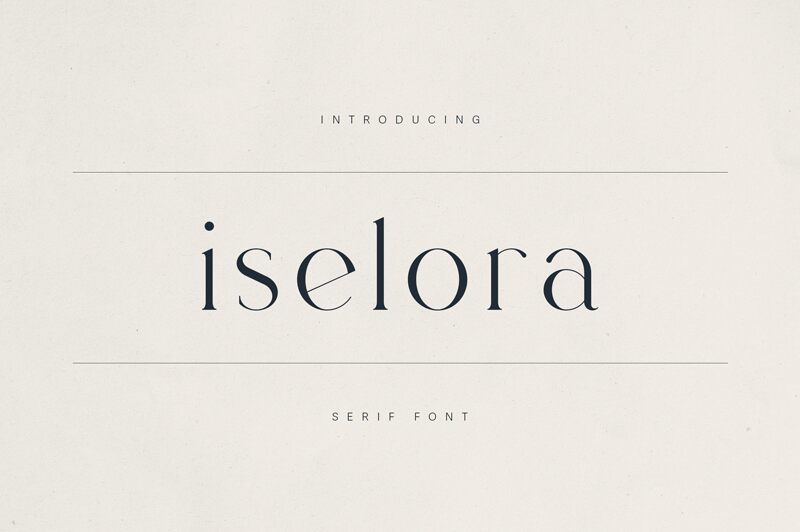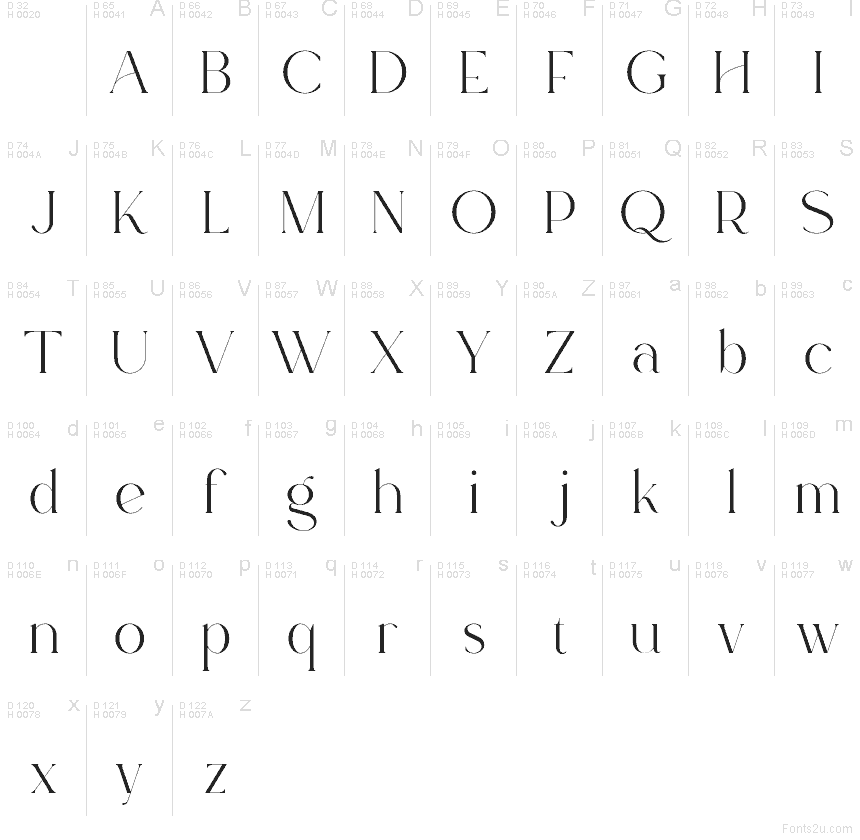
Iselora Demo Regular
Iselora font by VPcreativeshop is a free serif typeface with a sharply sculpted, fashion-editorial edge. Its letters feel carved rather than drawn: long, lean stems sliced by knife-thin diagonals and delicate curves that open up loads of white space. The result is a crisp, almost whisper-light texture that still carries plenty of attitude and drama on the page.
Using Iselora, headlines instantly take on a runway-ready, boutique feel that works beautifully for branding, packaging, magazine covers, lookbooks, invitations, and social media graphics. This free font thrives at larger sizes where its fine strokes and airy rhythm can really breathe. Pair Iselora with a simple geometric sans for body copy to keep the look modern, polished, and easy to read.